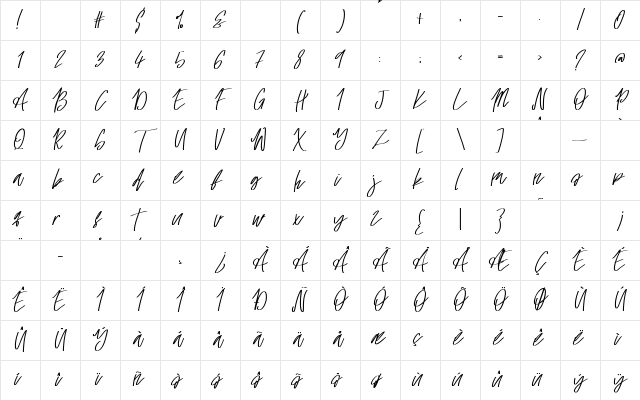
Complete Beautiful Lights Regular glyph index. Displaying only characters natively supported by Beautiful Lights Regular font.
Beautiful Lights is a composed and adaptable typeface that performs quietly and consistently across a wide range of design contexts. Its slender proportions lend an understated elegance to any composition.